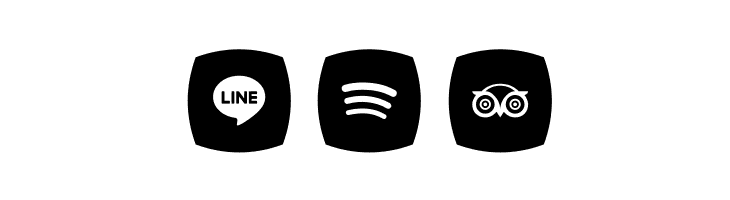
Monochrome circular social media and tech icon set.
Bold, rounded icons for social media and tech brands.
Icon-based font with social media and communication symbols.
Bold, rounded icon set for social media and tech brands.
Monochrome social media and tech icons in black circular buttons.
Monochrome circular social media and digital platform icons with white symbols on black backgrounds.